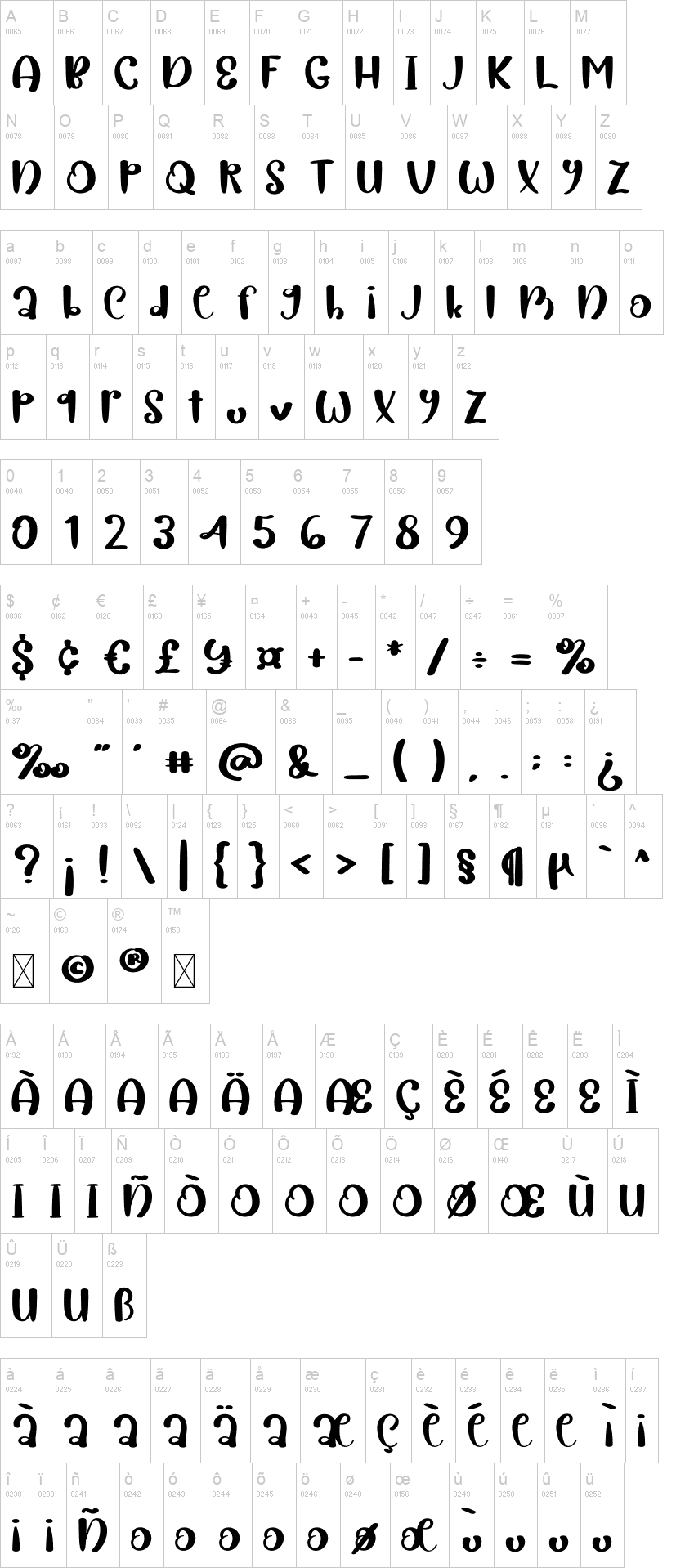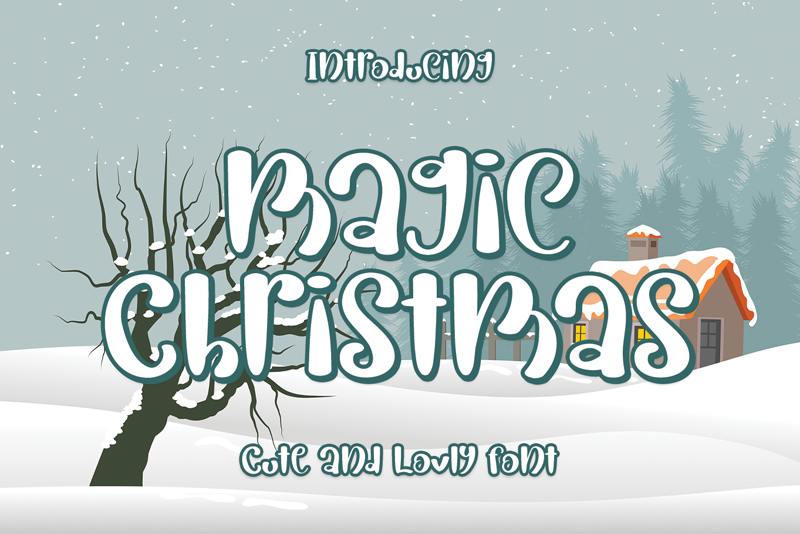
Note of the authorMagic Christmas is a sweet, whimsical and quirky script font. Featuring characters that dance along the baseline, this font will add a luxury spark to any design project that you wish to create!